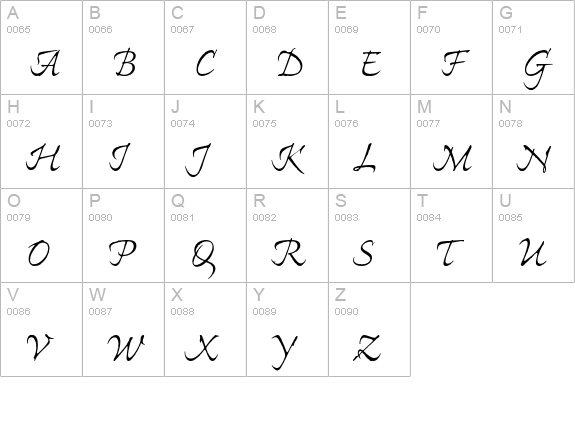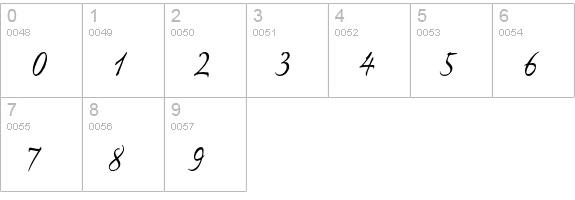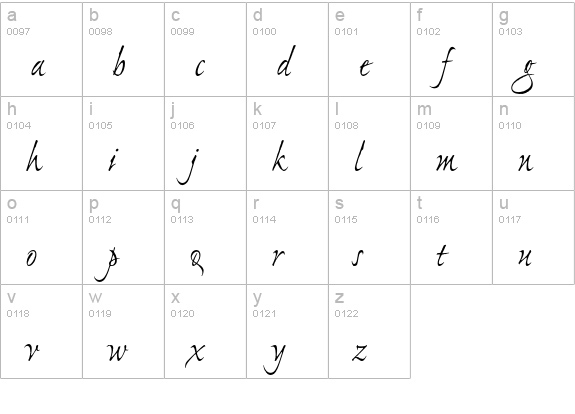
Ex Ponto Pro Font Details
Ex Ponto Pro is a beautifully crafted font that exudes elegance and sophistication. Its sleek lines and modern design make it perfect for a wide range of creative projects, from elegant invitations to stylish branding. The versatility of Ex Ponto Pro allows it to be used in both print and digital media, making it a valuable addition to any designer's toolkit. What sets Ex Ponto Pro apart is not only its stunning aesthetics but also its accessibility. This premium font is available for free download at FontsMarket.com, allowing designers of all skill levels to elevate their projects with this high-quality typeface. Whether you're working on a personal project or a client's campaign, Ex Ponto Pro is sure to impress with its timeless appeal and professional finish. Download now and experience the beauty and functionality of Ex Ponto Pro for yourself.